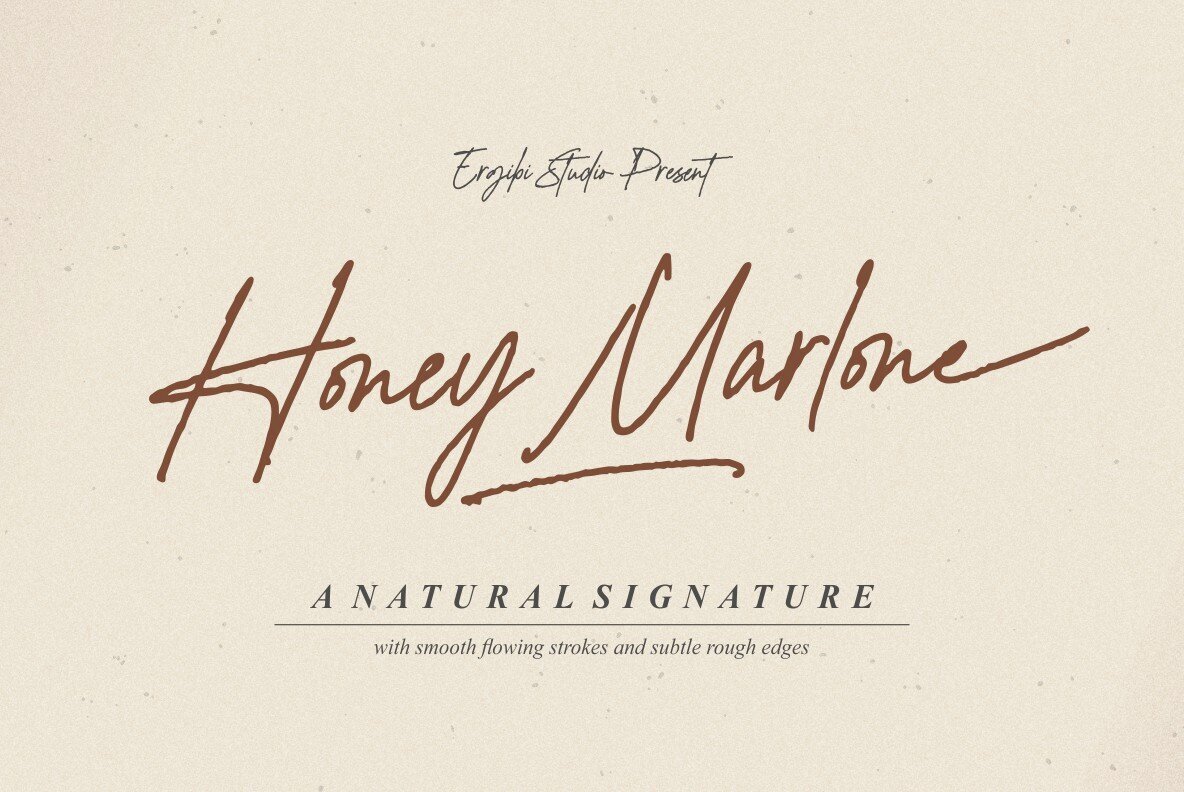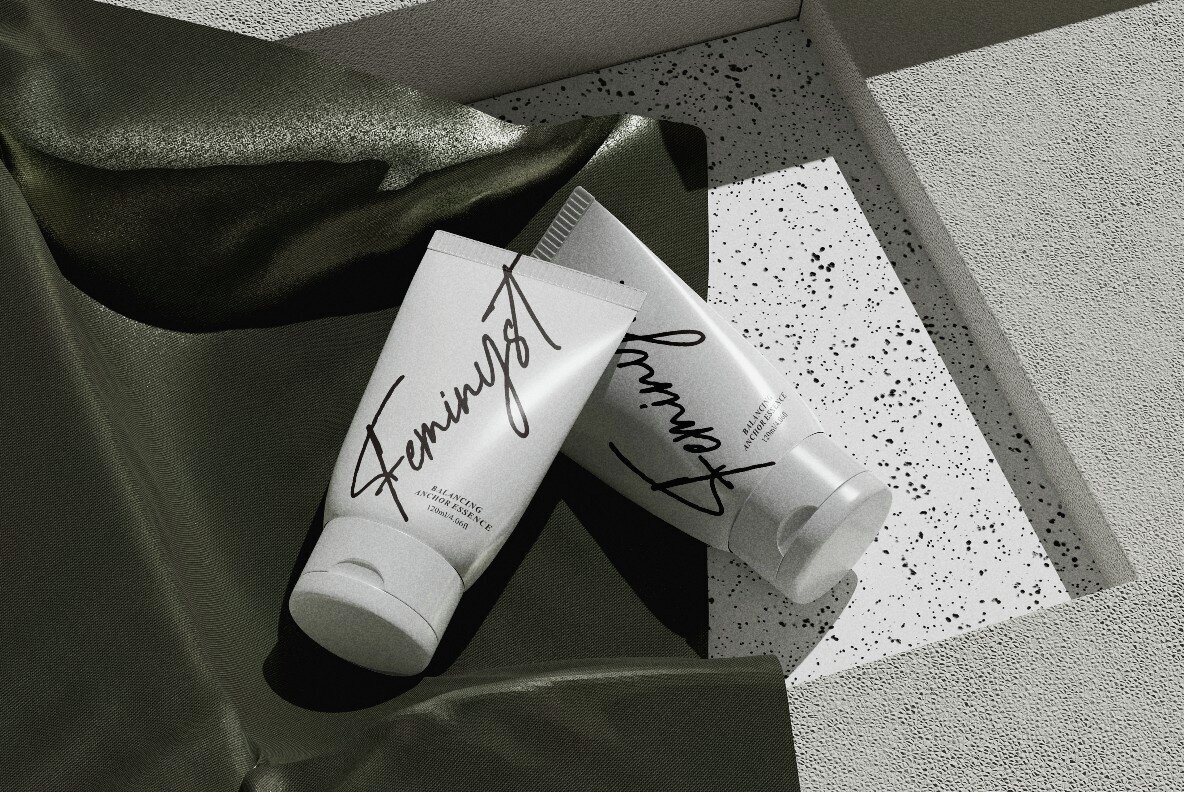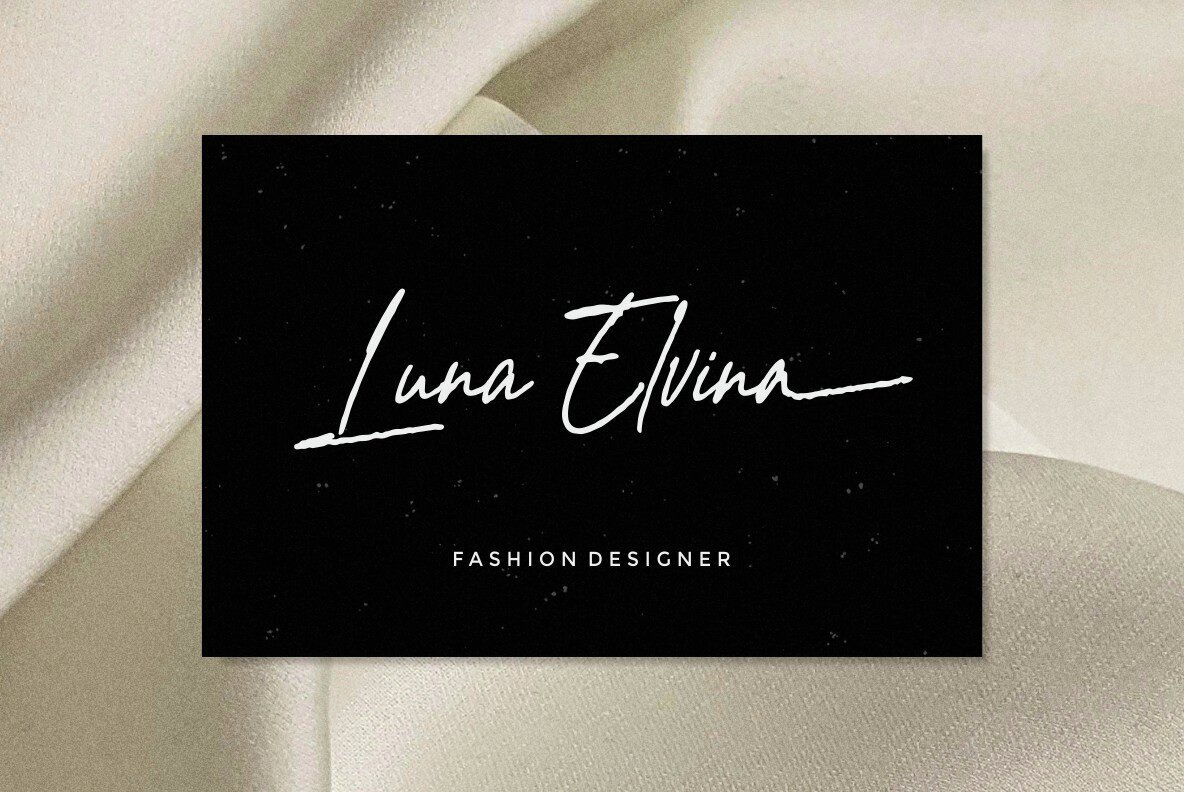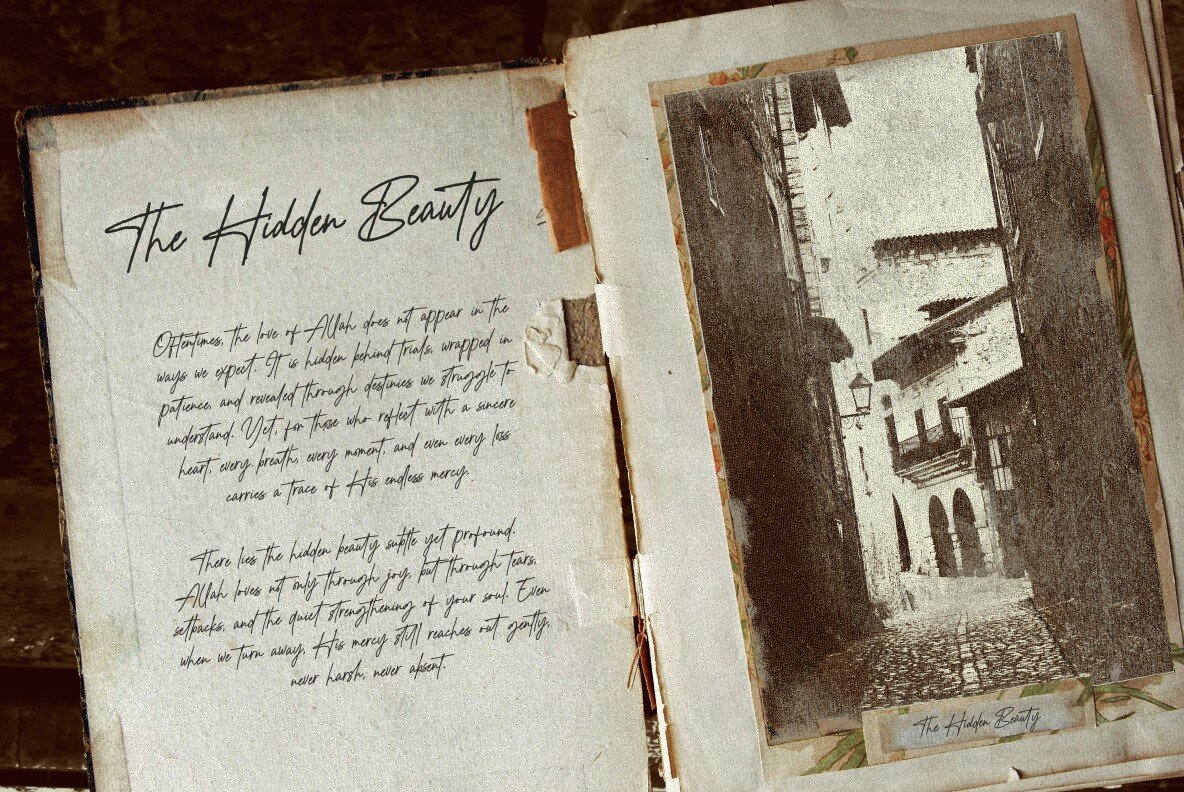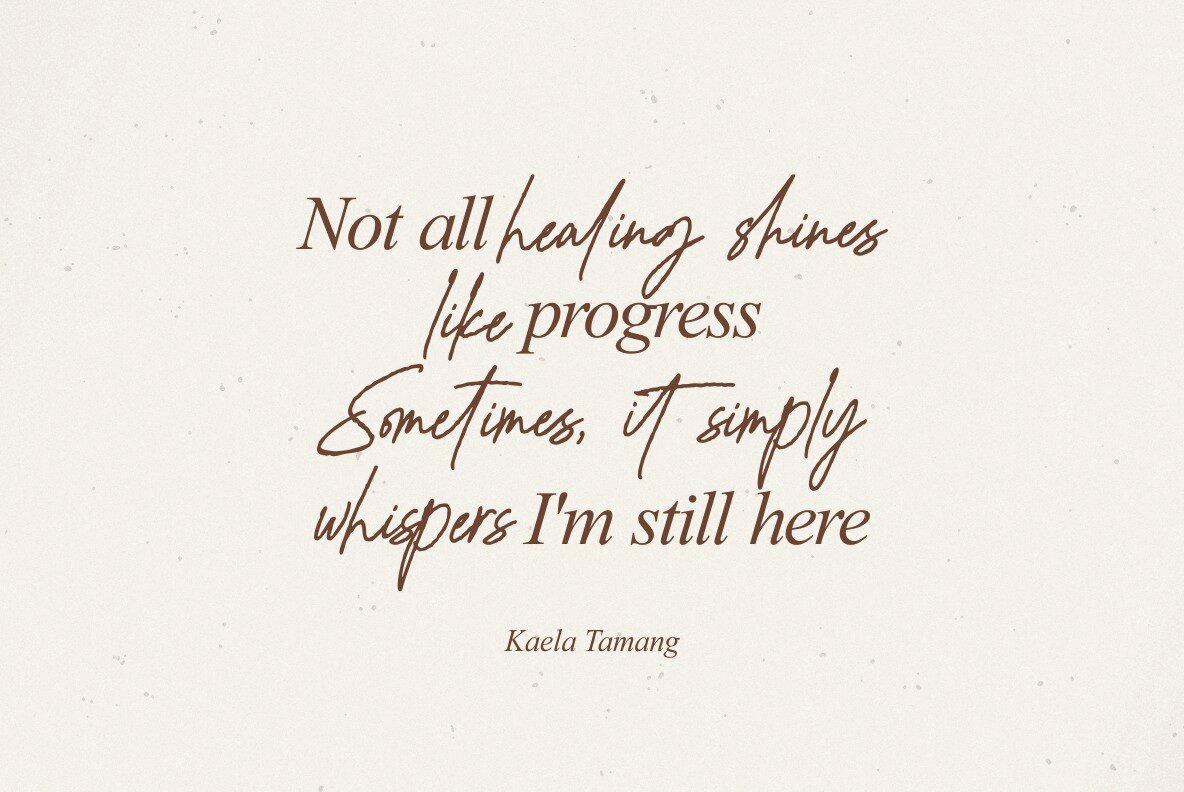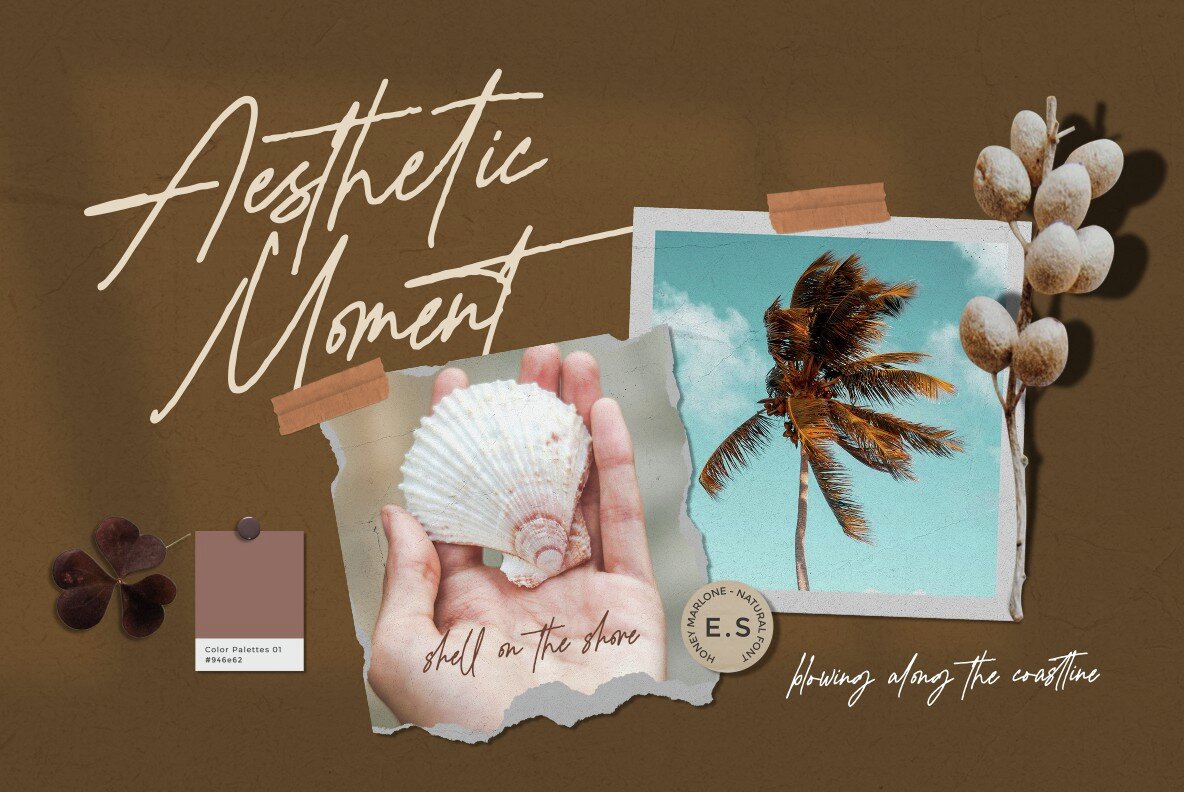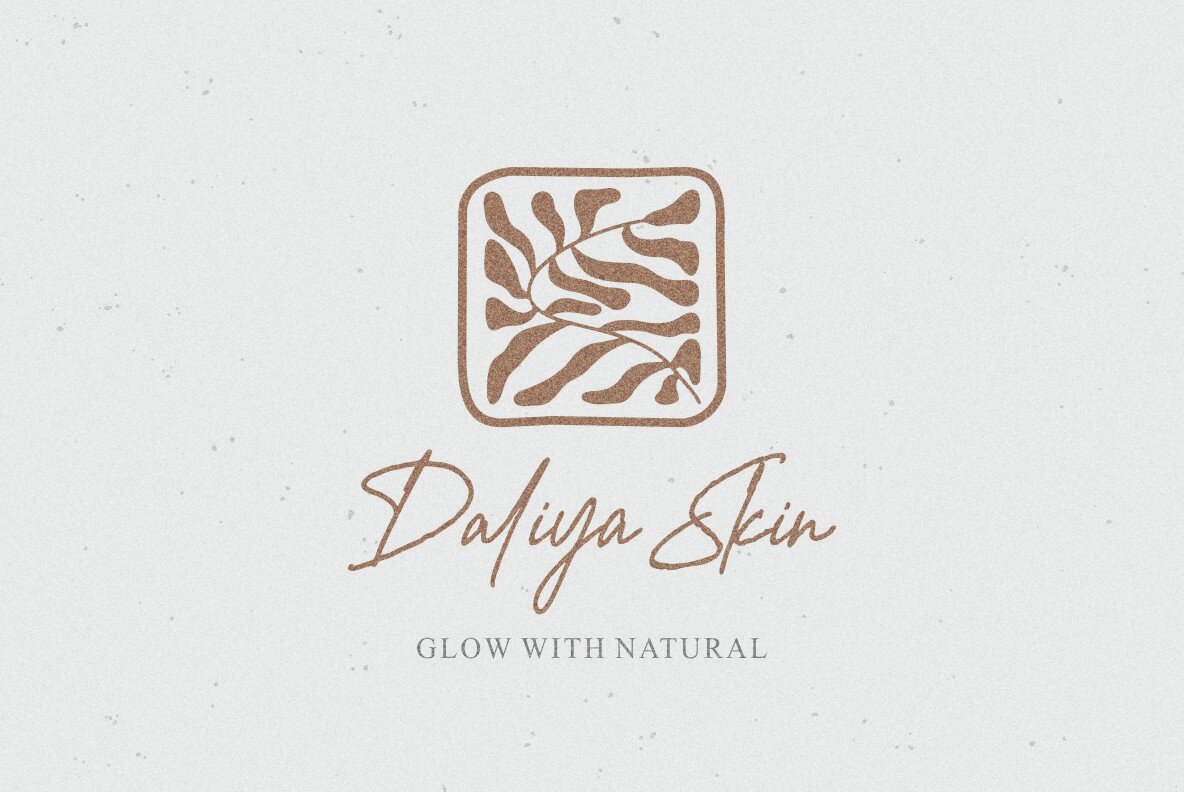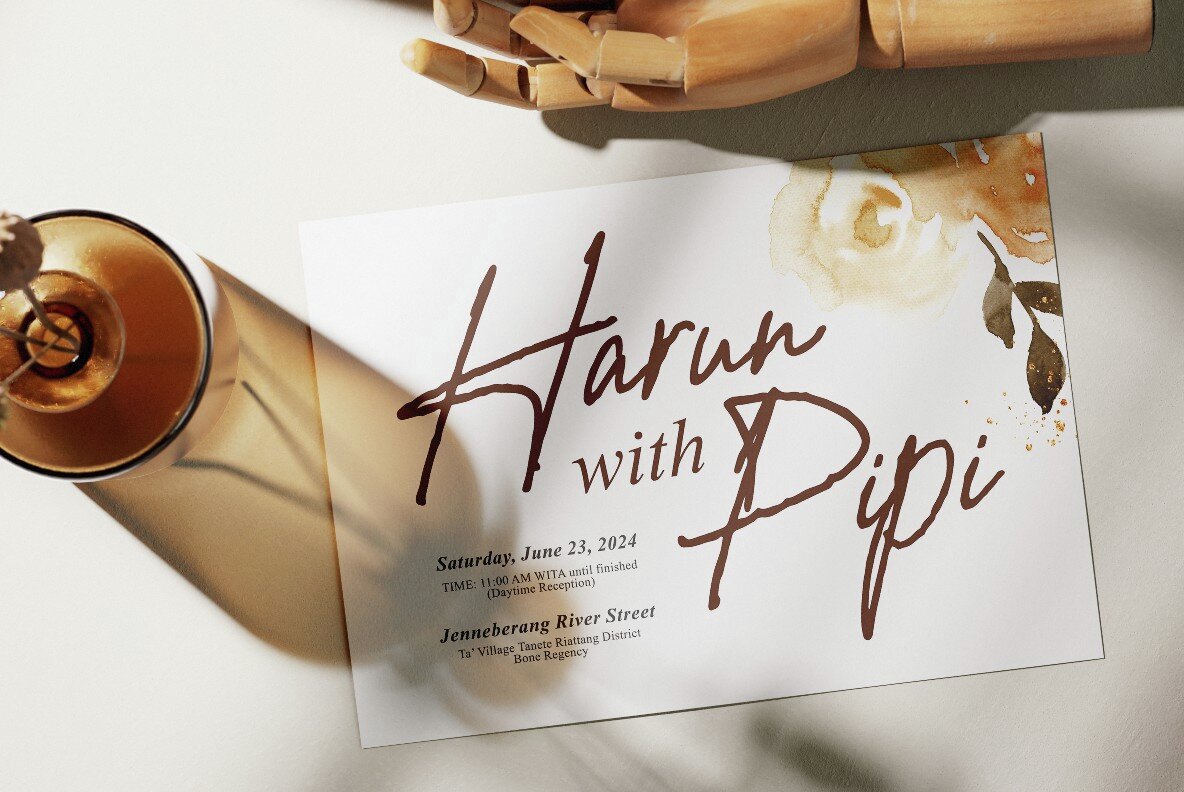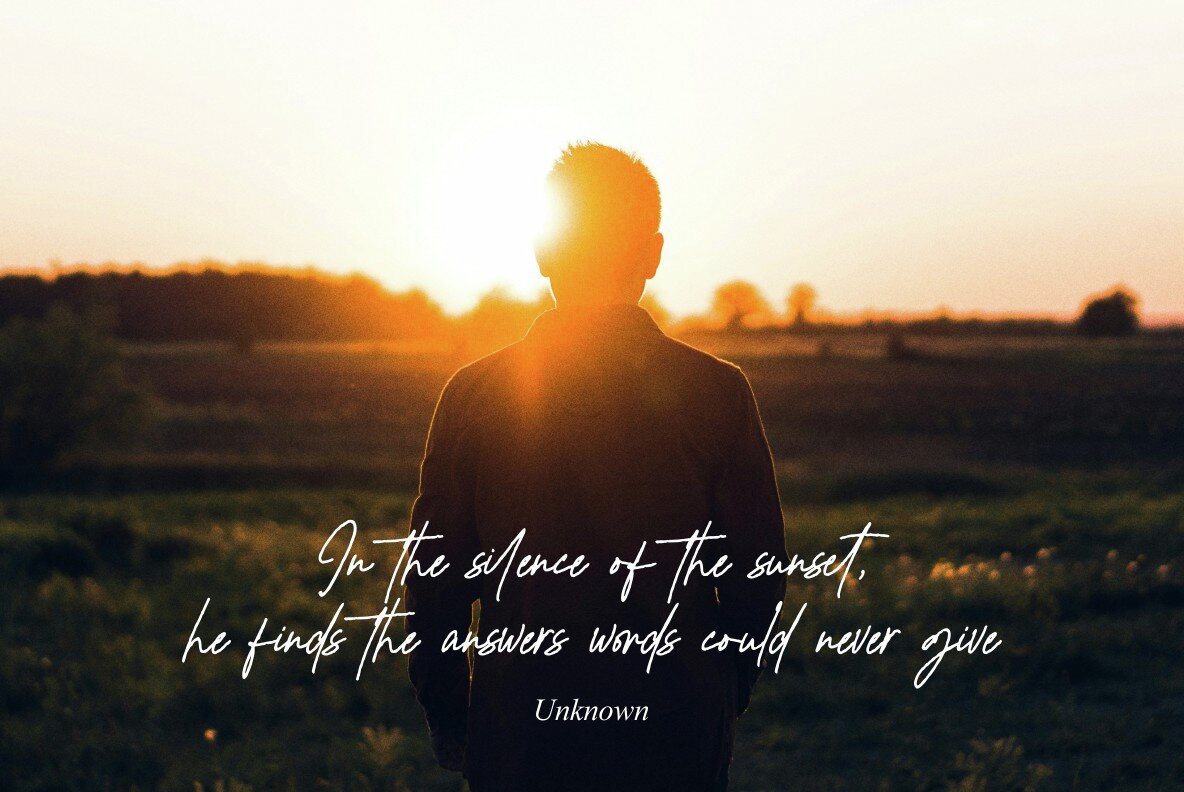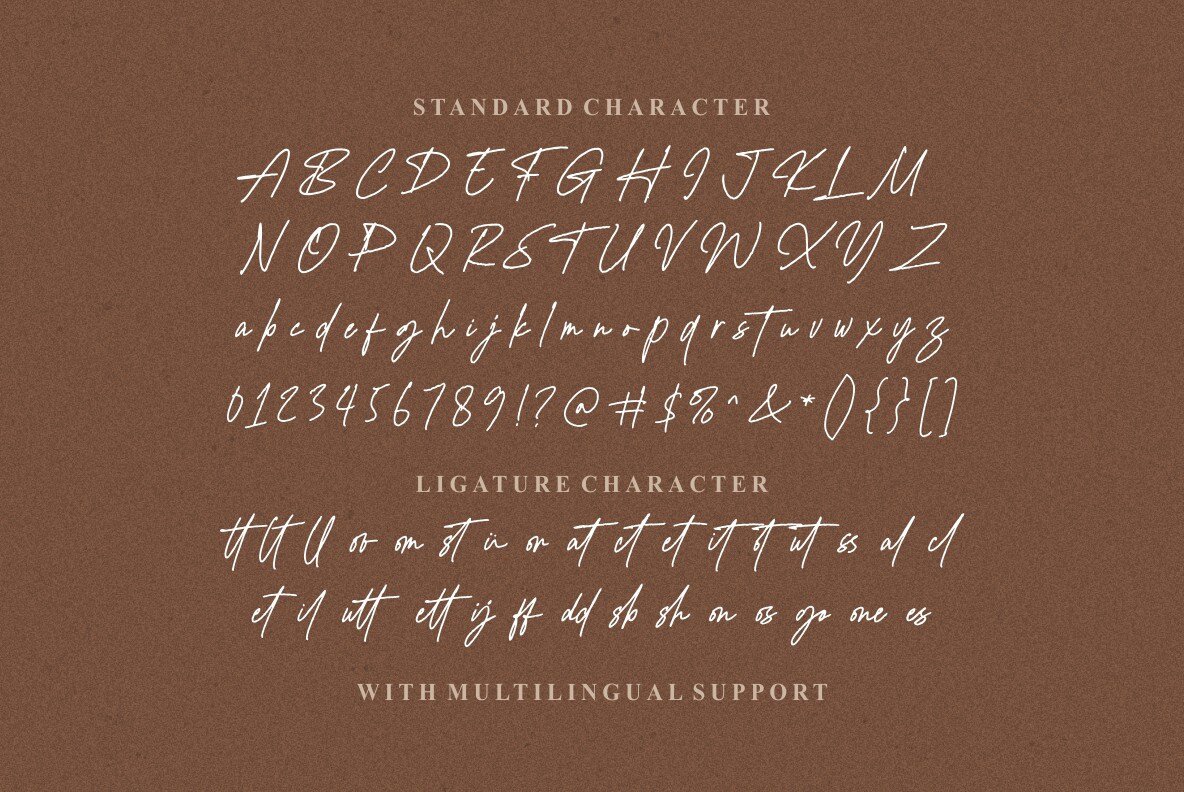
Honey Marlone Font
Honey Marlone
Honey Marlone is a natural handwritten typeface characterized by its warmth and personal touch. Each letter conveys a handmade quality, reminiscent of ink penned on a cozy afternoon. The font exudes an approachable charm with its smooth flowing strokes and delicate rough edges, making it ideal for creating inviting and genuine designs. Features:Honey Marlone: Handwritten Font With Warmth and Authenticity